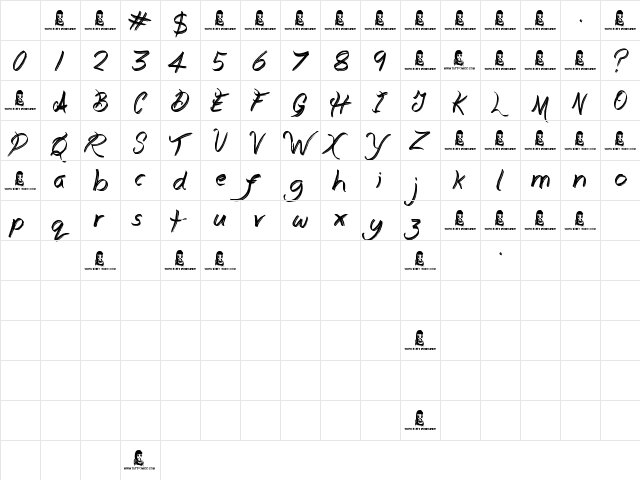
Everyday Mayhem Regular
Design Context for Everyday Mayhem
Everyday Mayhem is a composed and adaptable typeface that performs quietly and consistently across a wide range of design contexts.
Pro Tip: Use Everyday Mayhem in both headline and body roles to test its range before committing to a single application.